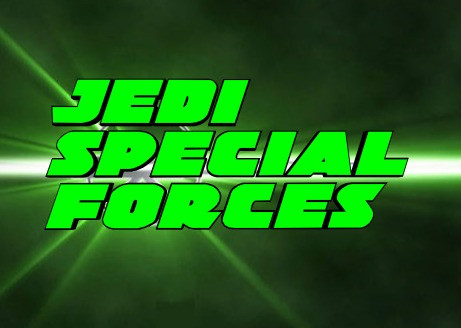
Jedi Special Forces Font
Jedi Special Forces Font, This Pack has strong, confident and powerful typography. It has a distinctive futuristic design. Use it to create time travel movie posters for futuristic or extraterrestrial productions. Great for creating unique cards and artwork for sci-fi fans. This font is made to be used for universal events like game contests, wall ads, and poster design. Your designs can look better with simple combinations. Buy it now to enjoy using it ahead of the competition.